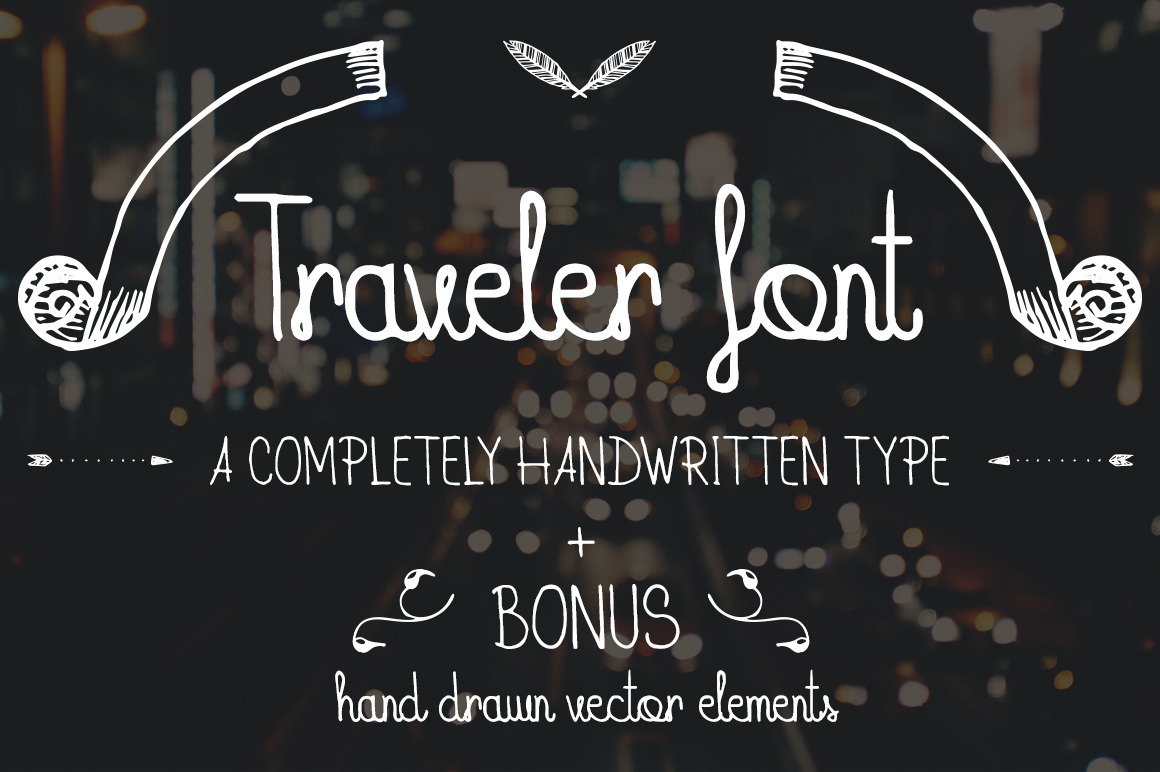
Traveler Font + BONUS pack
Hello everyone! I've always wanted to create a few fonts that I drew out ages ago but never really had the time to actually get it done...until now!
Introducing the Traveler handwritten font! Containing both upper and lowercase letters and most of the basic special characters. This will go perfect for any of your projects that need a personal touch to them. It's raw and imperfect style really gives that hand-made feel to it, so you can personalize any design you can think of, from complete identity kits to your badass car stickers you so desperately want to slap all over the windows (or is that just me?)
- As I promised, I've also included a bonus hand drawn vector elements pack for you, to personalize even further your awesome design projects, to the point where jaws drop left and right *